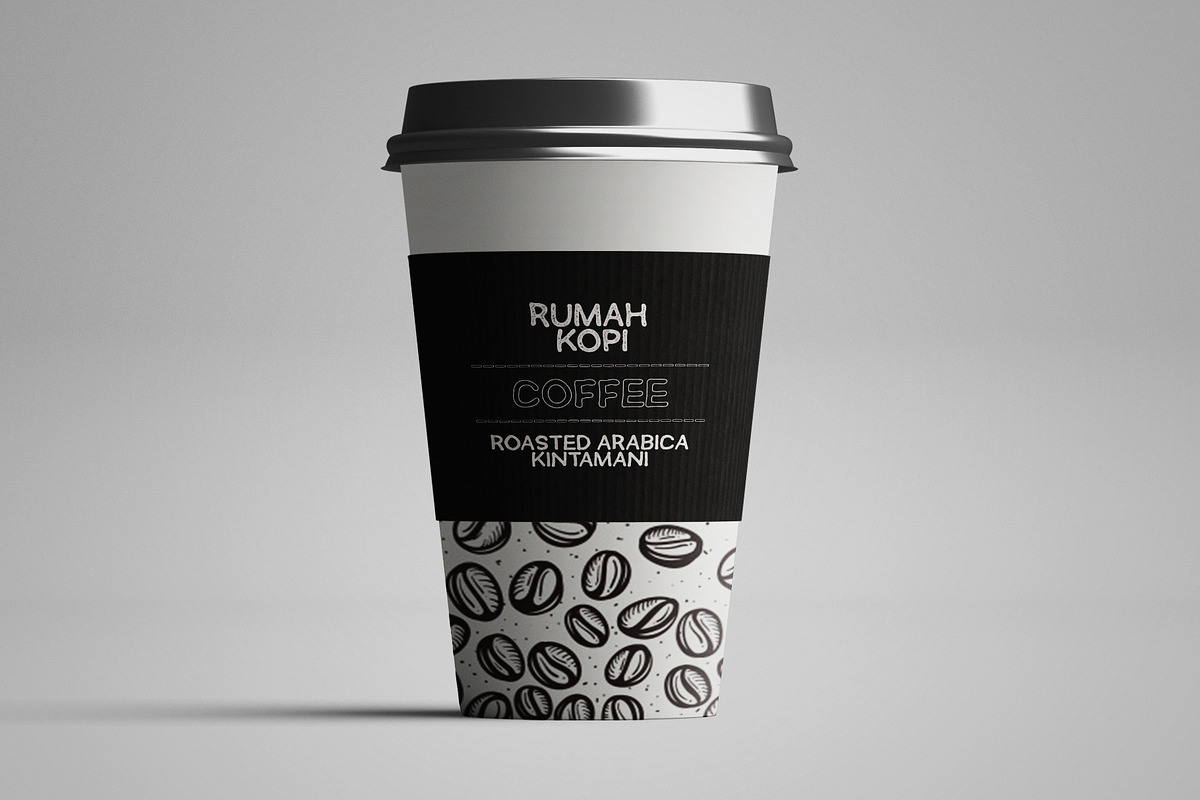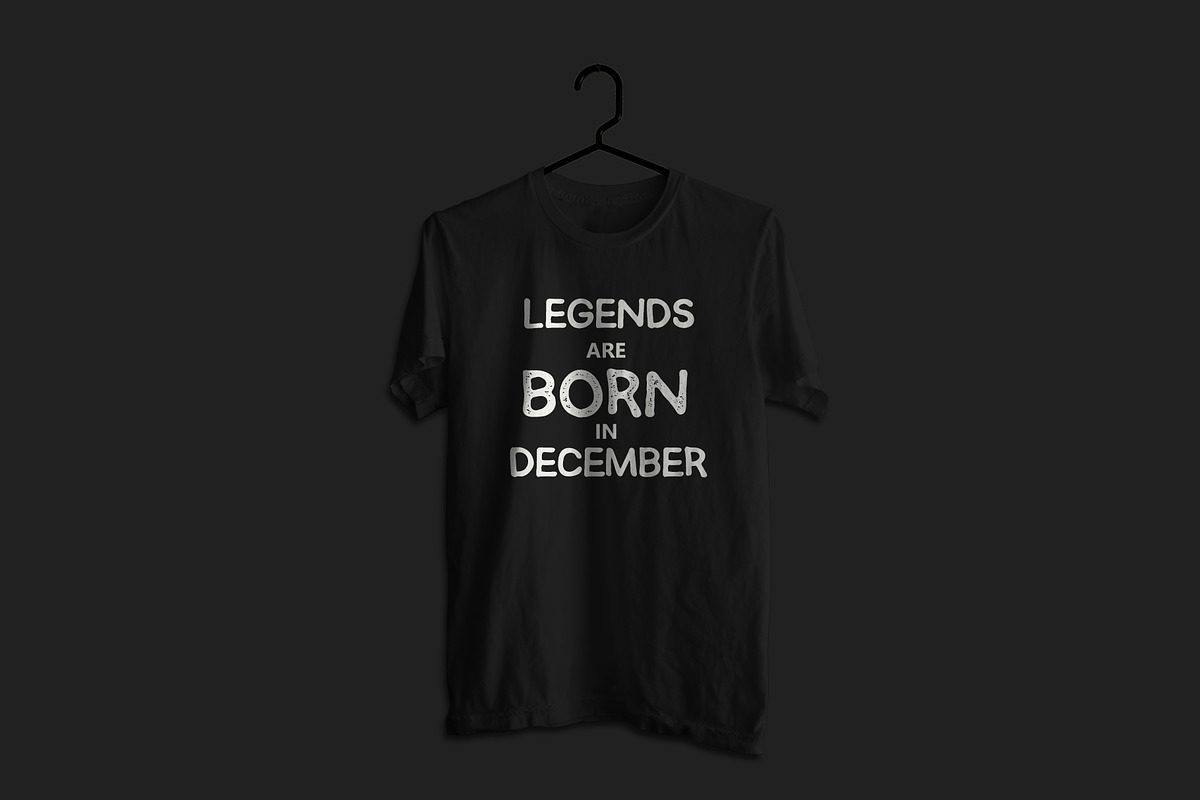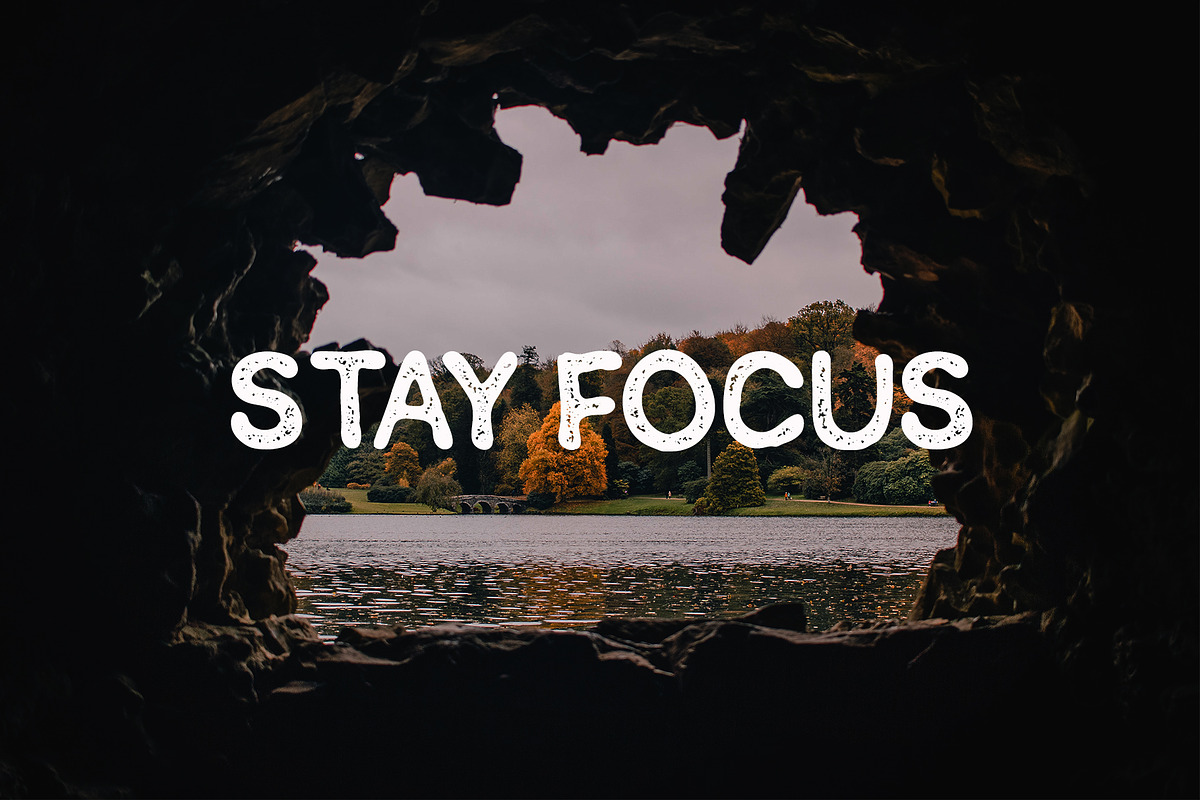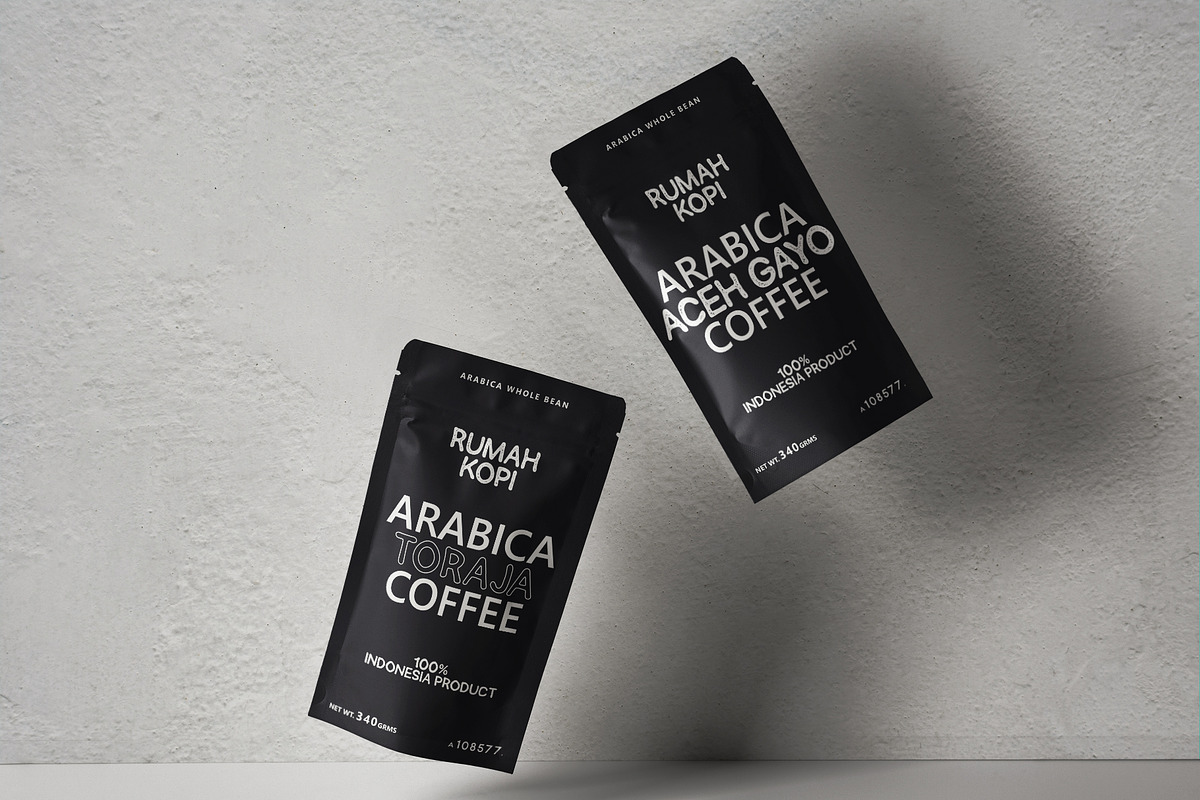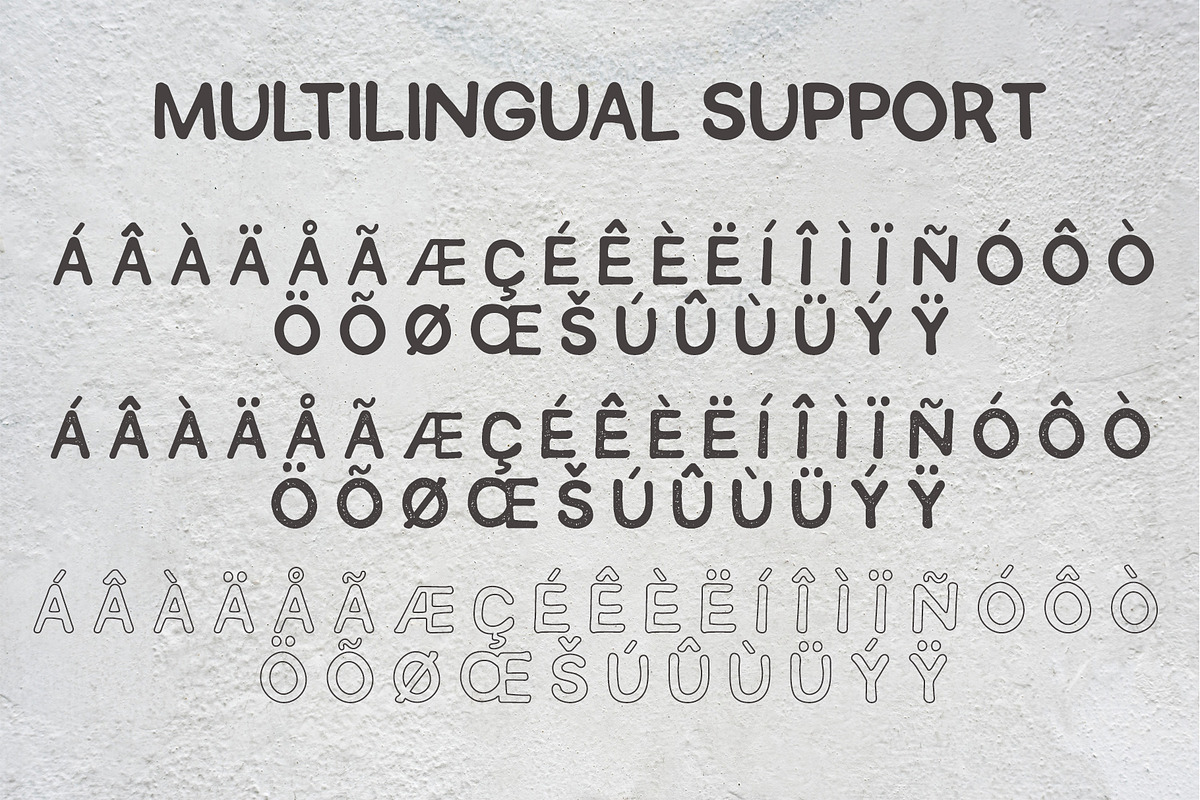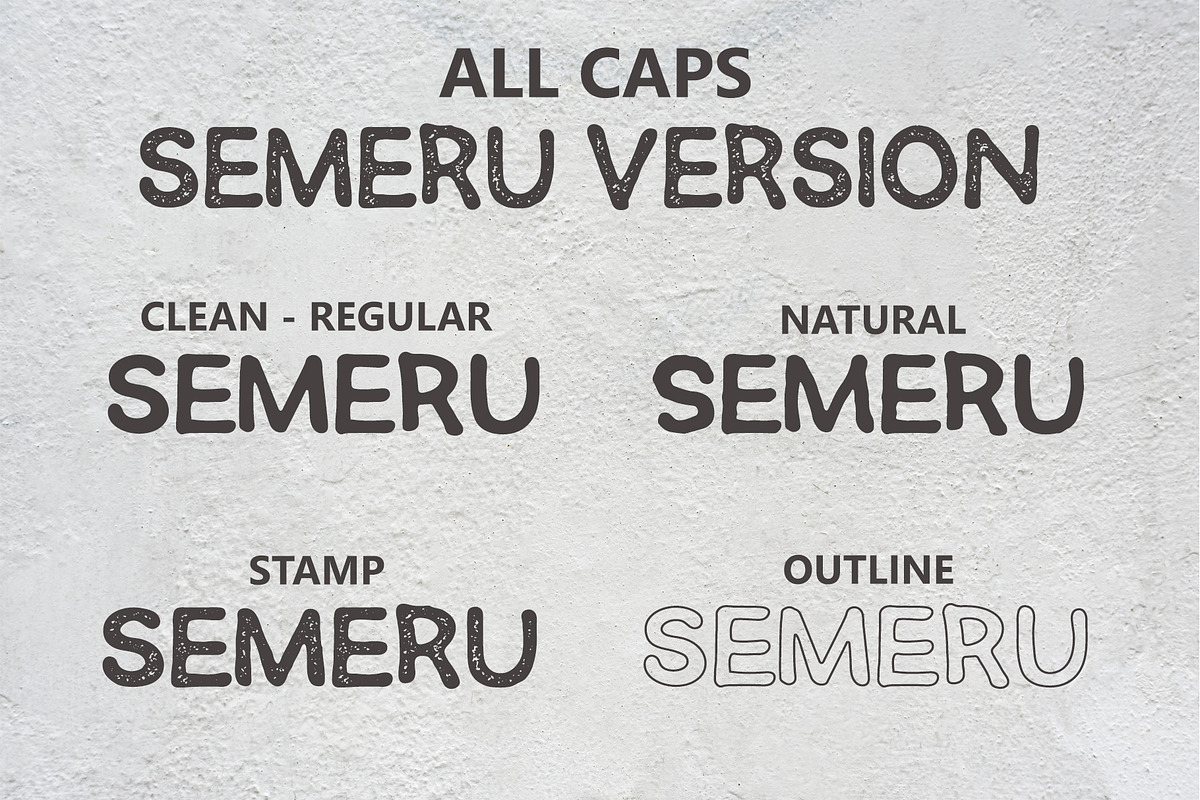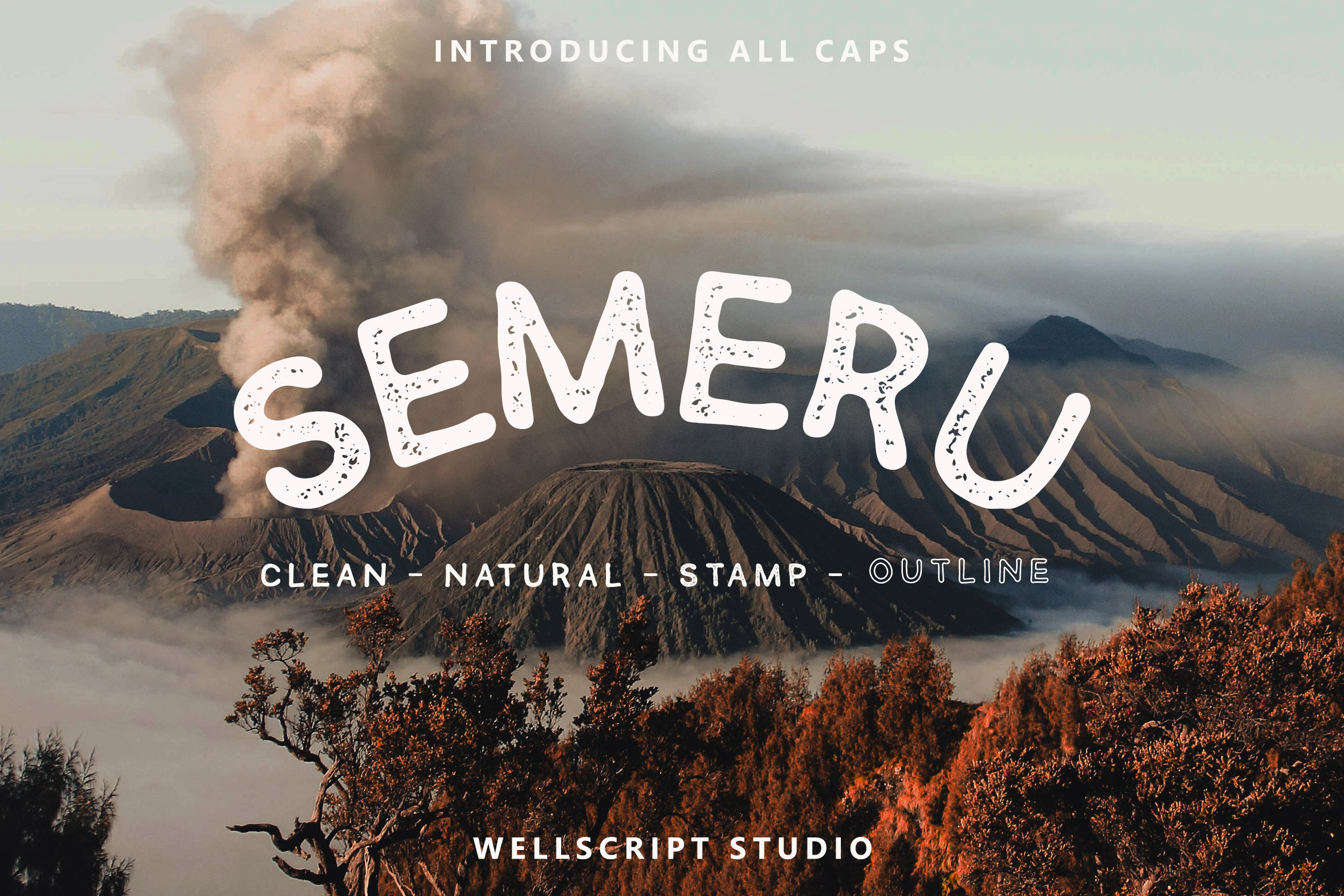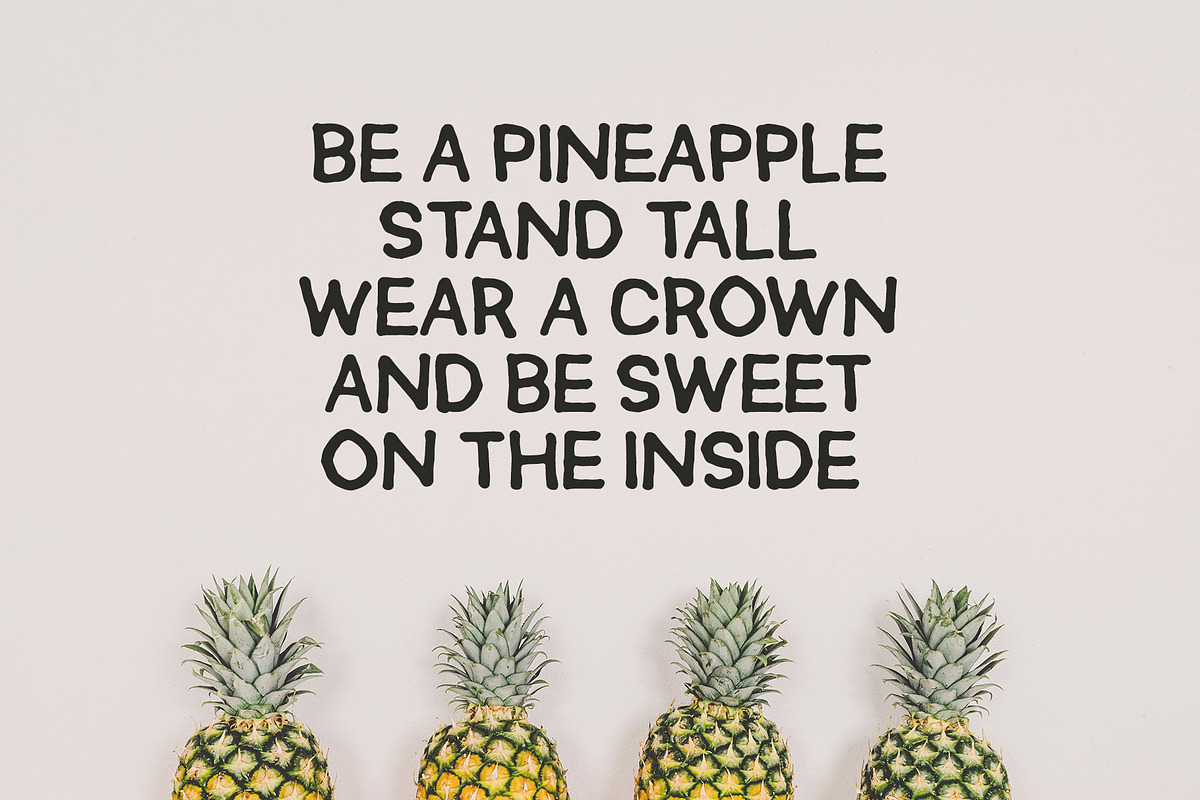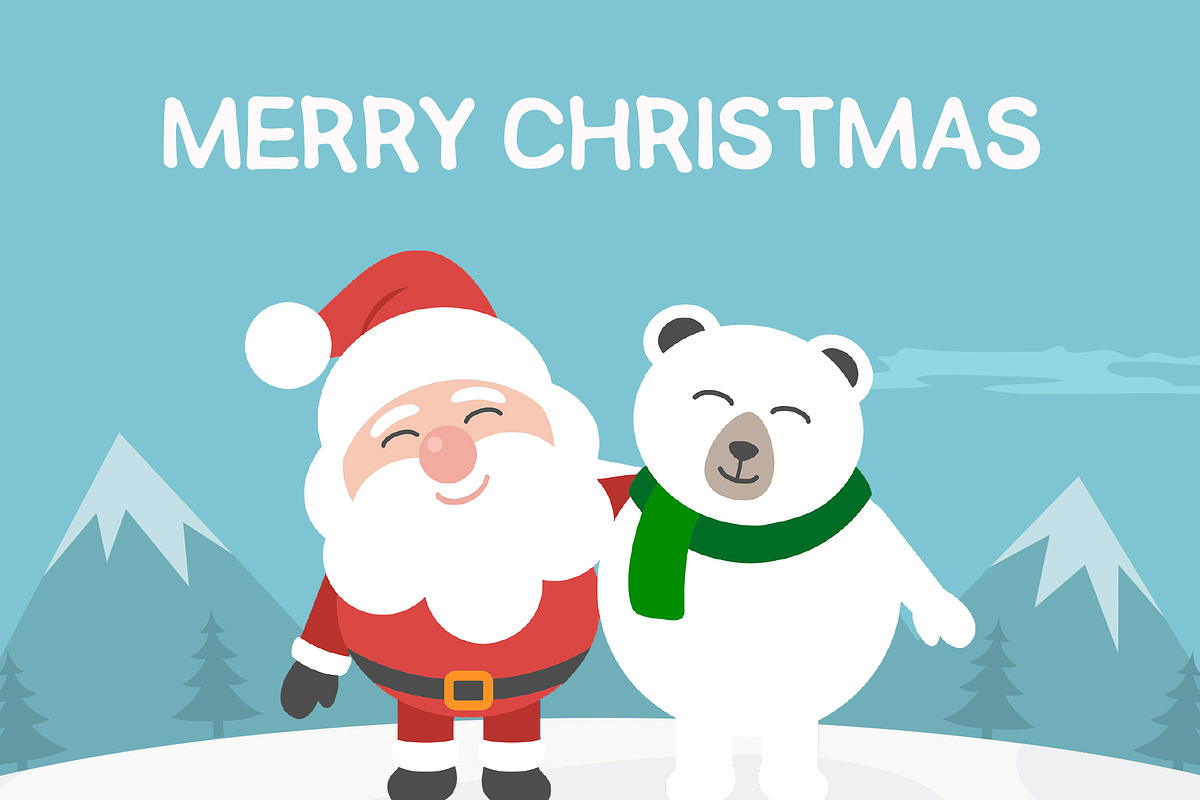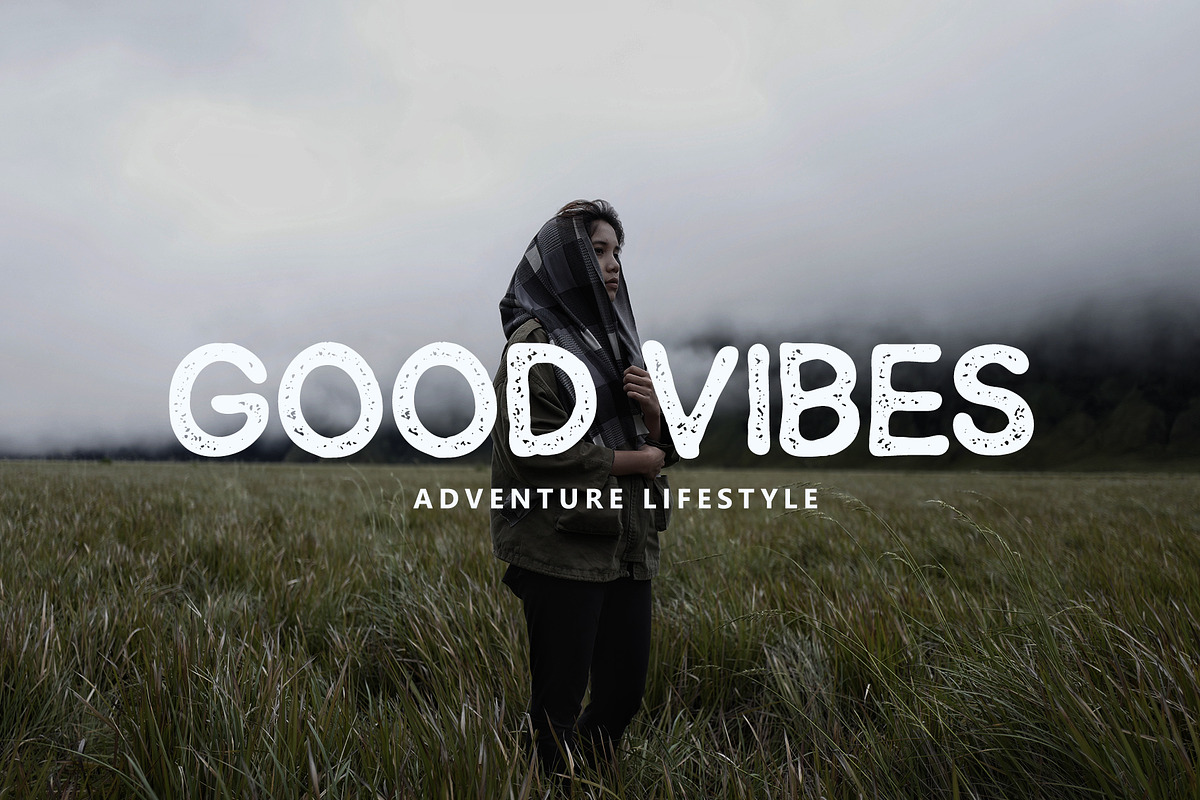
SEMERU - HANDWRITTEN SANS FONT
SEMERU is simple eye catchy font. This is all caps, bold, strong, adventure, playful, cute, unique, and fun. SEMERU is awesome for branding projects, logo, wedding designs, social media posts, advertisements, product packaging, product designs, label, photography, watermark, invitation, stationery and any projects that need handwriting taste. SEMERU includes four version of gorgeous uppercase letters, four version numerals, a large range of punctuation, 3 version multilingual support.